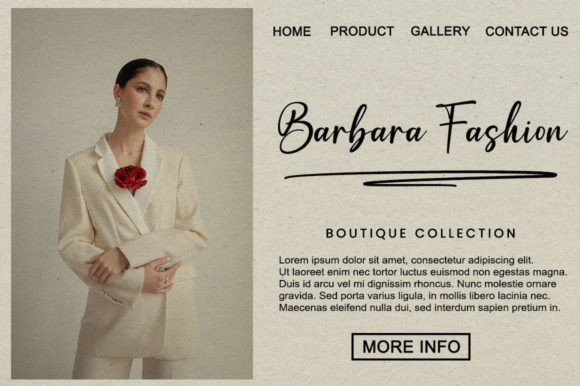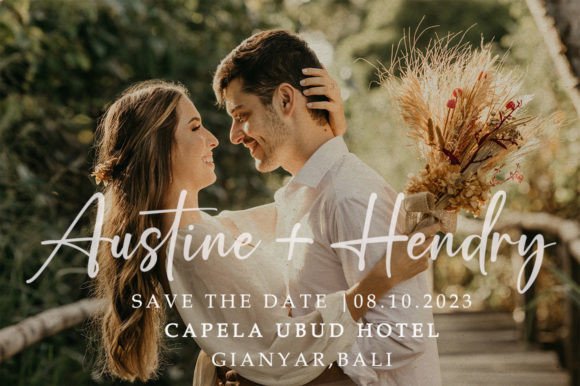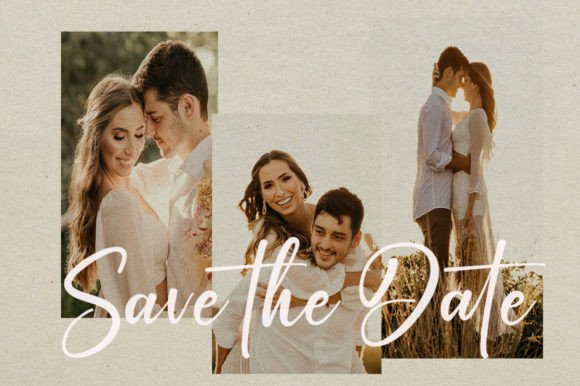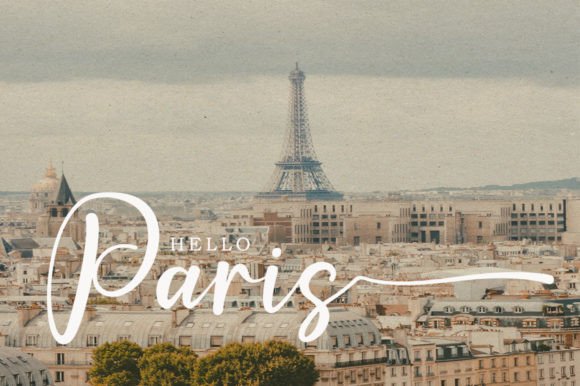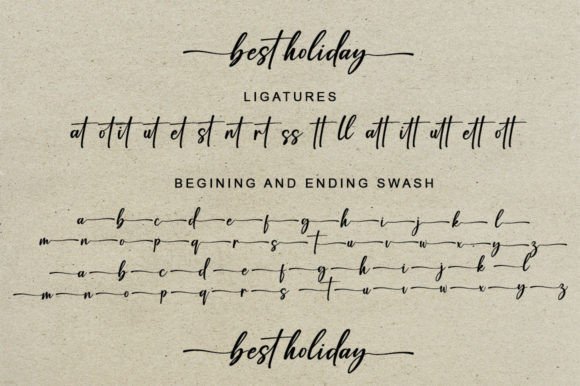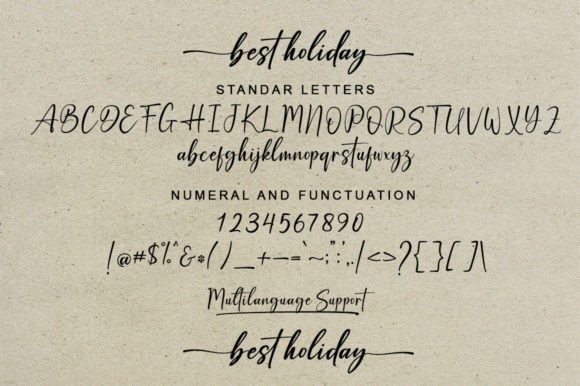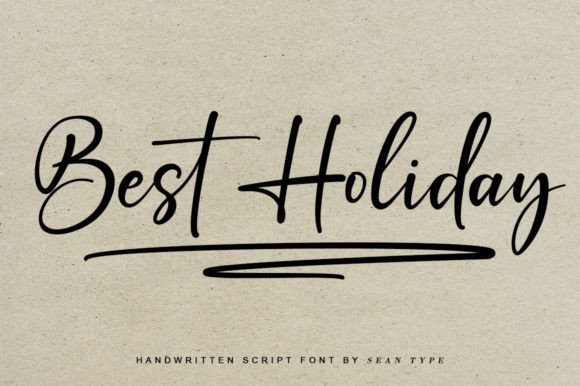
The Best Holiday Font: Elevate Your Designs with Timeless Elegance
Are you searching for the perfect font to add a touch of sophistication and elegance to your holiday-themed designs? Look no further than the Best Holiday font. This beautiful script font is simple yet passionate, offering a smooth flow of letters with a strong sense of beauty. Its classic calligraphic forms give it a subtle but distinctive feel that’s perfect for any creative project.
What Makes Best Holiday Font So Special?
The Best Holiday font is a standout choice for designers and crafters alike. Here are just a few reasons why:
- Timeless Elegance: This font offers a timeless elegance that’s perfect for holiday-themed designs, from Christmas cards to Valentine’s Day invitations.
- Smooth Flow of Letters: The Best Holiday font features a smooth flow of letters, creating a beautiful and cohesive look that’s sure to impress.
- Classic Calligraphic Forms: The font’s classic calligraphic forms give it a subtle but distinctive feel that’s perfect for adding a touch of sophistication to your designs.
- PUA Encoded: The Best Holiday font is PUA encoded, which means you can access all glyphs and swashes effortlessly. This makes it easy to customize your designs and add your own personal touch.
The Best Holiday font is perfect for any creative project, from holiday-themed crafts to professional design projects. Here are just a few ideas to get you started:
- Holiday Cards and Invitations: Use the Best Holiday font to create beautiful holiday cards and invitations that will impress your friends and family.
- Crafting Projects: Add a touch of elegance to your crafting projects, from scrapbooking to DIY gifts, with the Best Holiday font.
- Professional Design Projects: Use the Best Holiday font to add a touch of sophistication to your professional design projects, from brochures to websites.
Why Choose the Best Holiday Font?
With so many fonts to choose from, why should you choose the Best Holiday font? Here are just a few reasons why:
- High-Quality Design: The Best Holiday font is designed with high-quality craftsmanship in mind, ensuring a beautiful and cohesive look that’s sure to impress.
- Easy to Use: The font is easy to use and customize, making it perfect for designers and crafters of all skill levels.
- Versatile: The Best Holiday font is versatile and can be used for a wide range of creative projects, from holiday-themed designs to professional design projects.
| Font Name | Best Holiday Font |
| Author | seantype |
If you’re looking for a beautiful and elegant font to add a touch of sophistication to your holiday-themed designs, look no further than the Best Holiday font. With its smooth flow of letters, classic calligraphic forms, and PUA encoding, this font is perfect for any creative project. Whether you’re a designer or crafter, the Best Holiday font is sure to become a favorite in your collection.